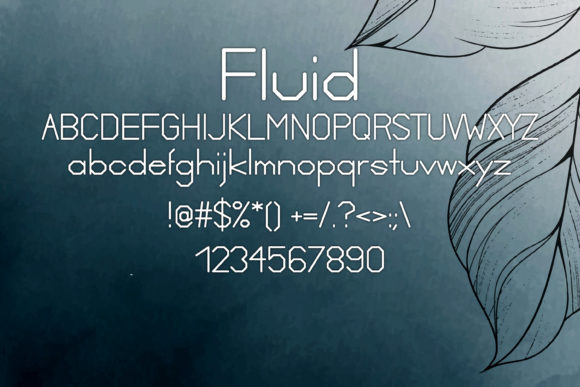
Introducing Fluid Font: Elevate Your Designs with a Unique Display Font
Are you tired of using the same old fonts in your designs? Do you want to add a touch of futurism and uniqueness to your projects? Look no further than Fluid Font, a thin and distinctive display font that’s sure to take your designs to the next level. In this article, we’ll explore the features and benefits of Fluid Font, and show you how to incorporate it into your design workflow.
What is Fluid Font?
Fluid Font is a geometrically shaped font that’s perfect for designers and crafters looking to add a touch of modernity to their projects. Its thin and unique design makes it ideal for use in a variety of applications, from logo design and branding to posters, flyers, and digital media. With its futuristic feel, Fluid Font is sure to make your designs stand out from the crowd.
Key Features of Fluid Font
- Unique and distinctive design: Fluid Font’s geometric shape and thin lines make it a one-of-a-kind font that’s sure to grab attention.
- Versatile: Fluid Font can be used in a variety of design applications, from print to digital media.
- Easily customizable: With its simple and clean design, Fluid Font is easy to modify and customize to suit your design needs.
- Scalable: Fluid Font is designed to be scalable, making it perfect for use in a variety of sizes and resolutions.
How to Use Fluid Font in Your Designs
Using Fluid Font in your designs is easy. Here are a few tips to get you started:
- Pair it with bold colors: Fluid Font’s thin design makes it perfect for use with bold and bright colors.
- Use it as a headline font: Fluid Font’s unique design makes it perfect for use as a headline font, adding a touch of futurism to your designs.
- Experiment with different sizes: Fluid Font’s scalable design makes it perfect for use in a variety of sizes, from small captions to large headlines.
Benefits of Using Fluid Font
So why should you use Fluid Font in your designs? Here are just a few benefits:
- Adds a touch of futurism: Fluid Font’s unique design makes it perfect for adding a touch of futurism to your designs.
- Stand out from the crowd: Fluid Font’s distinctive design makes it sure to grab attention and set your designs apart from the competition.
- Easy to use: Fluid Font is easy to use and customize, making it perfect for designers of all skill levels.
Tips and Tricks for Getting the Most Out of Fluid Font
Here are a few tips and tricks for getting the most out of Fluid Font:
- Use it sparingly: Fluid Font’s unique design makes it perfect for use in small doses. Use it sparingly to add a touch of futurism to your designs.
- Experiment with different colors: Fluid Font’s thin design makes it perfect for use with a variety of colors. Experiment with different colors to find the perfect look for your design.
- Pair it with other fonts: Fluid Font’s clean design makes it perfect for use in combination with other fonts. Experiment with different font combinations to find the perfect look for your design.
In conclusion, Fluid Font is a unique and versatile display font that’s perfect for designers and crafters looking to add a touch of futurism to their projects. With its thin and geometrically shaped design, Fluid Font is sure to make your designs stand out from the crowd. Whether you’re looking to create a bold and eye-catching headline or add a touch of modernity to your branding, Fluid Font is the perfect choice.